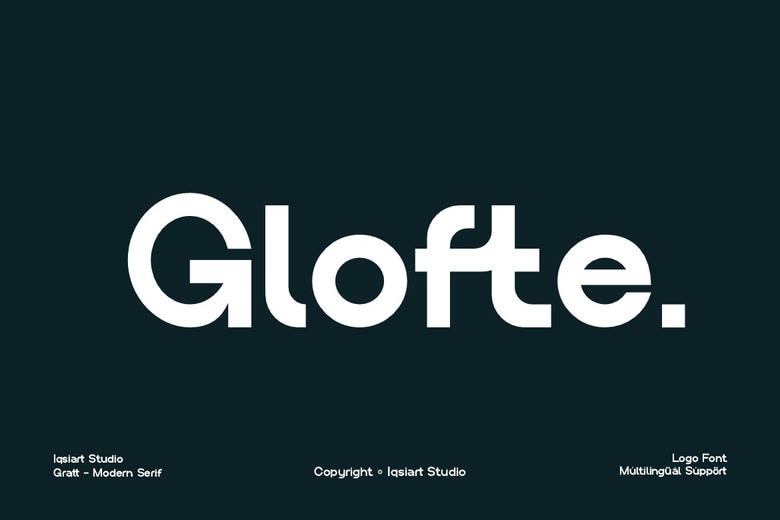
Glofte Font
Glofte is a bold and authentic display typeface that works well for many design projects. We have a wide range of themes and font styles. Check out our profile to find the perfect style for your project.
Glofte Sans Serif Font